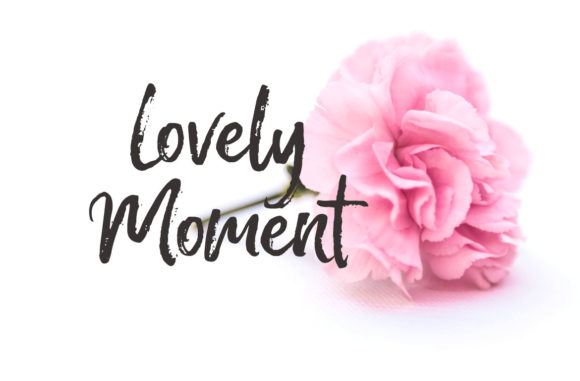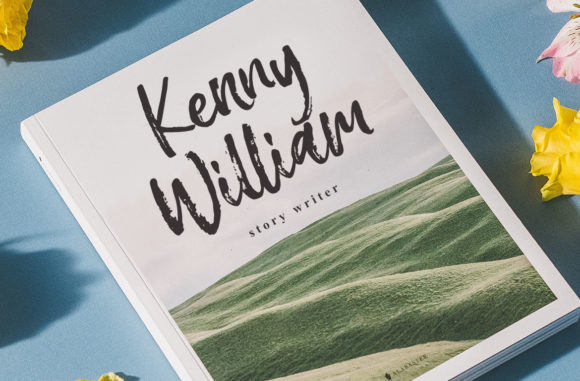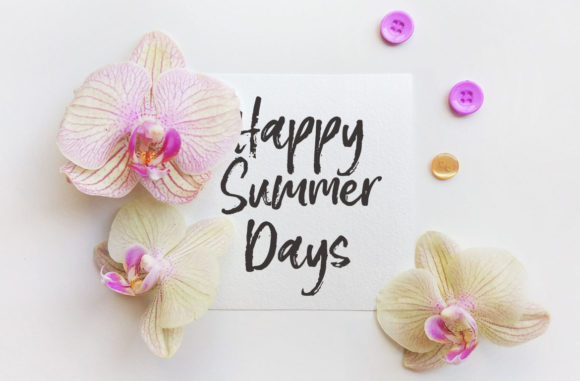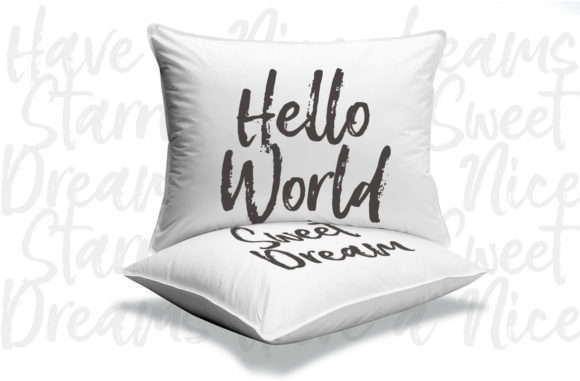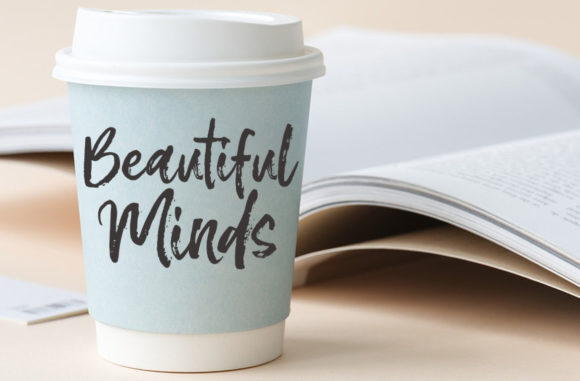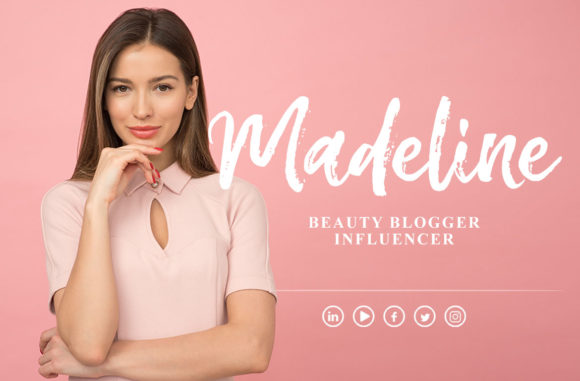
Introduction to Meredith Font
Have you ever found yourself staring at a blank canvas, trying to bring a design idea to life, but struggling to find the perfect font to match your vision? That was me last week, until I stumbled upon the enchanting Meredith Font. Its delicate, handcrafted script instantly captured my attention, and I knew I had to learn more.
As a designer, you know how valuable a high-quality font can be in elevating your creative project. A great font can make all the difference between a design that’s just ‘okay’ and one that’s truly memorable. And that’s exactly what Meredith Font promises to deliver – a sweet, charming touch that will make your designs stand out.
Key Features of Meredith Font
- High-quality, professional design suitable for various creative projects.
- Features a modern and elegant design, perfect for use in logos, branding, and other visual identity elements.
- Supports a wide range of languages, making it a versatile design resource for international projects.
Honest Review: Meredith Font
As a designer, I’m always on the lookout for high-quality design resources to elevate my creative projects. Recently, I had the chance to explore the Meredith Font, and I must say, it’s a gem.
What works well is its elegant, modern aesthetic, which makes it perfect for a variety of design applications, from branding and marketing materials to digital products and websites. The font is available for free download, which is a major plus in my book.
One of the standout features of the Meredith Font is its transparent background, making it easy to layer and combine with other design elements. I also appreciate the fact that it’s highly versatile, suitable for both print and digital use.
Here are some of its key features:
- High-quality design with a modern aesthetic
- Highly versatile for print and digital use
My only minor gripe is that the font may not be suitable for very small text sizes, as it can become difficult to read. ⚠️ However, this is a minor limitation, and overall, I’m thoroughly impressed with the Meredith Font.
Overall, I’d give the Meredith Font 4.5 out of 5 stars. It’s a fantastic addition to any designer’s toolkit, and I highly recommend it for any creative project. ✨
Meredith Font
The Meredith Font is a high-quality design resource ideal for creative projects. Its versatility and unique style make it a popular choice among designers and non-designers alike.
Tips for Getting the Most Out of Meredith Font
To get the most out of Meredith Font, experiment with different font sizes, styles, and layer effects. Combine it with other design elements to create a unique and eye-catching design.
The Meredith Font is ideal for creative projects such as social media graphics, blog posts, and marketing materials. Its versatility makes it suitable for a wide range of industries and design styles.
Alternatives to Meredith Font
A high-quality, elegant script font suitable for creative projects, especially those requiring a touch of sophistication. Alex Brush is a free download and can be used for a variety of purposes, including invitations, wedding cards, and branding materials.
Compared to Meredith Font, Alex Brush has a more refined and delicate appearance, making it ideal for applications where a softer, more feminine look is desired. It lacks the bold, modern feel of Meredith Font but offers a unique, handwritten style.
Carolyna Pro is a high-quality, modern sans-serif font that can be used as a design resource for a wide range of creative projects. Its clean lines and transparent background make it perfect for branding materials, digital products, and print materials.